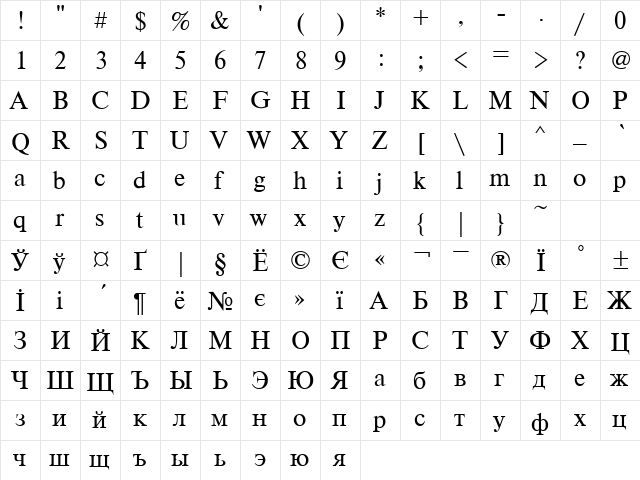
TimesDL Regular
Design Context for TimesDL Typeface
TimesDL takes a measured approach to typography — its balanced proportions and neutral character make it a reliable workhorse for both digital and print work.